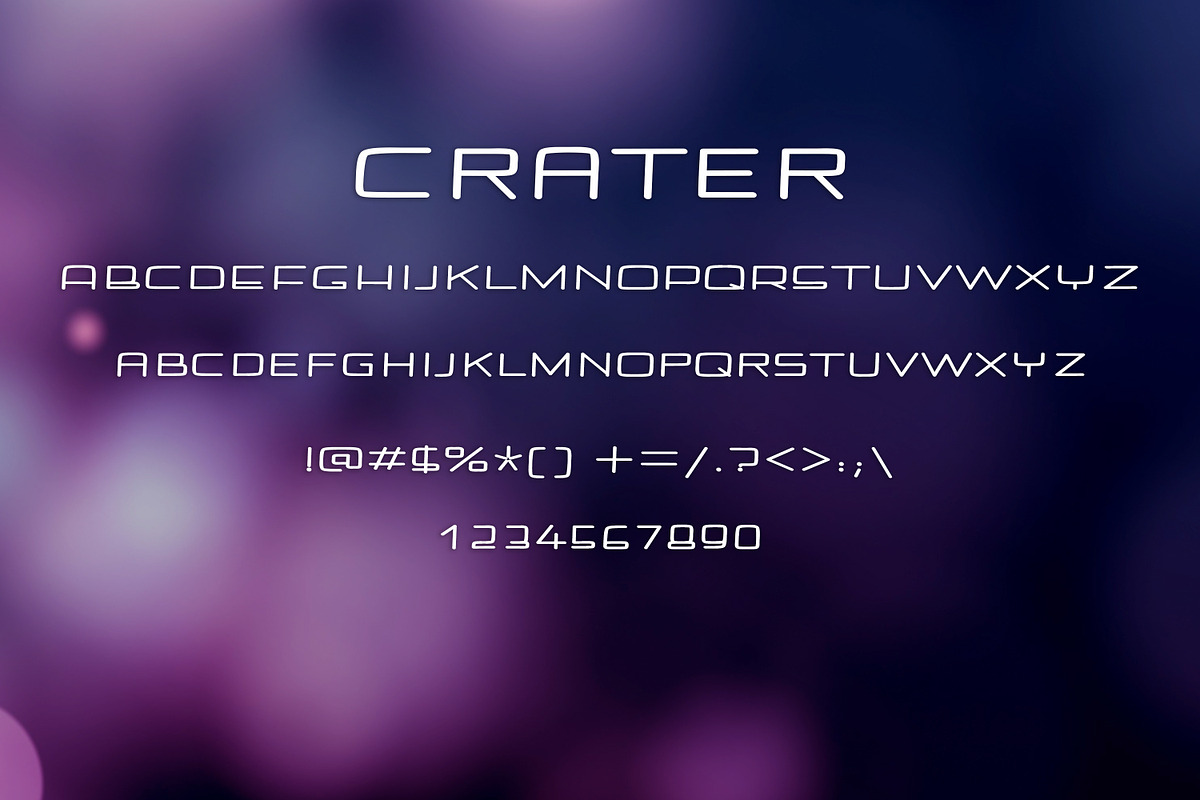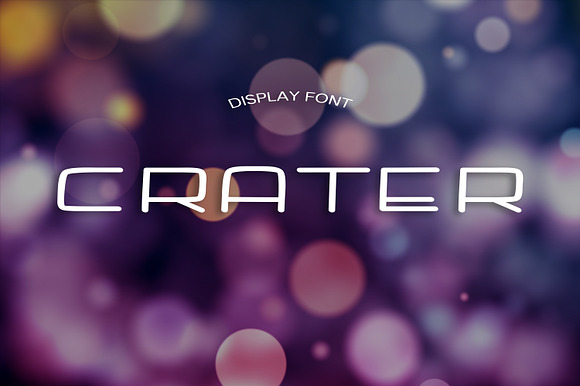
CRATER font
- Crater regular
Why CRATER font is worth a look
CRATER font by DmDesignsStoreArt fits naturally into Branding, posters, packaging, typography.